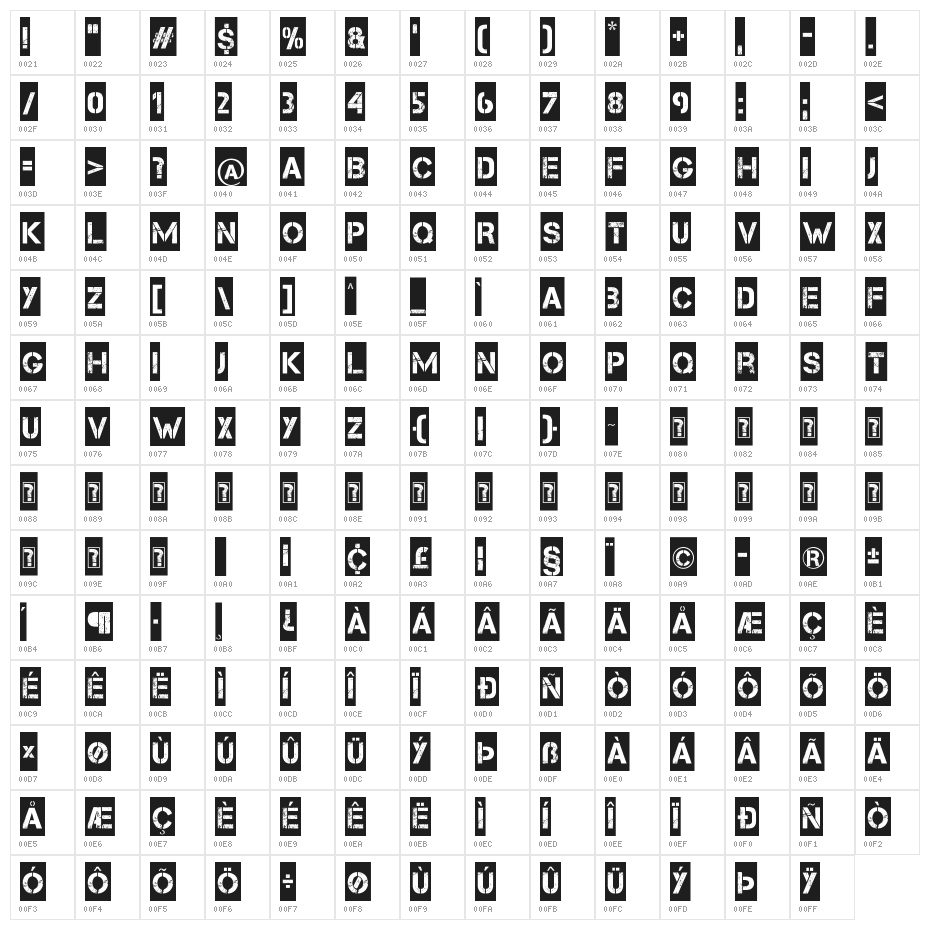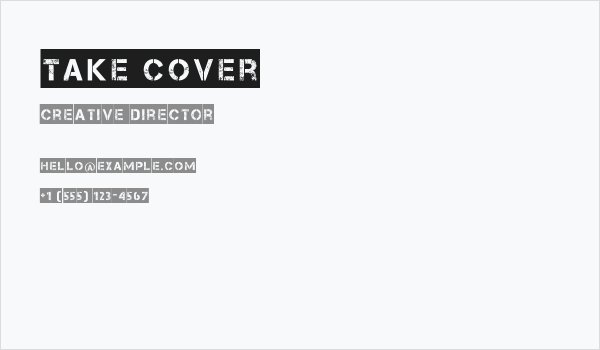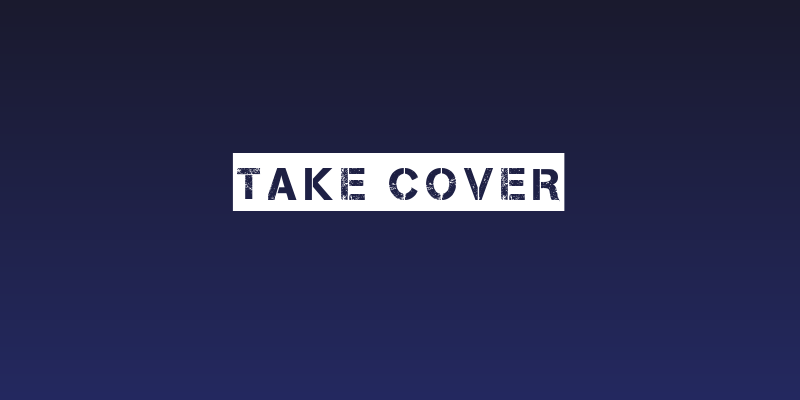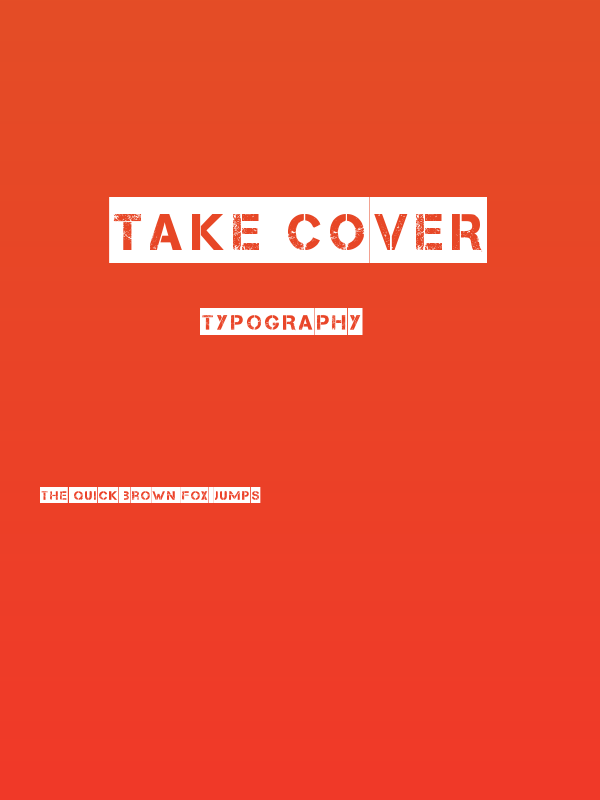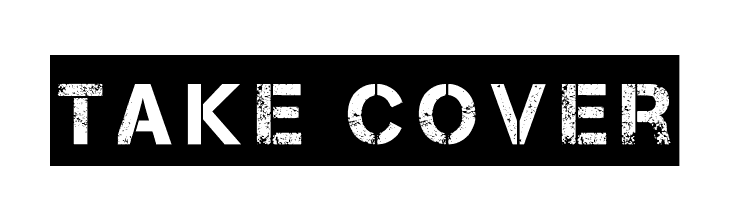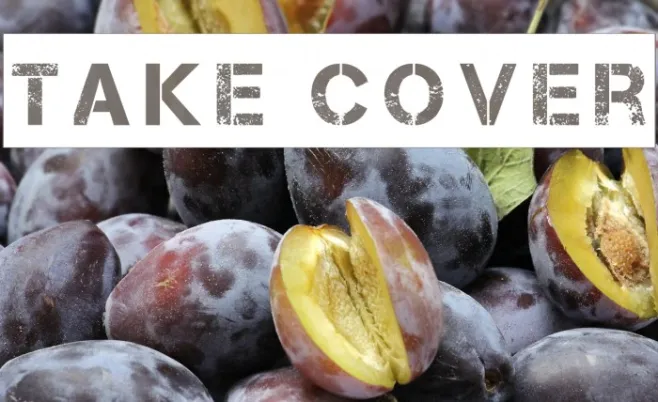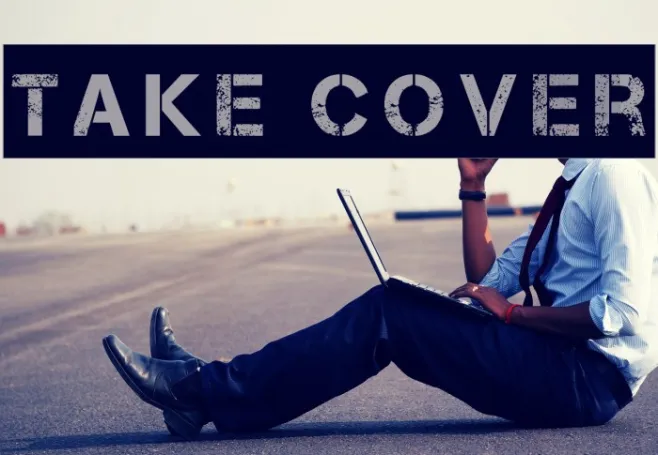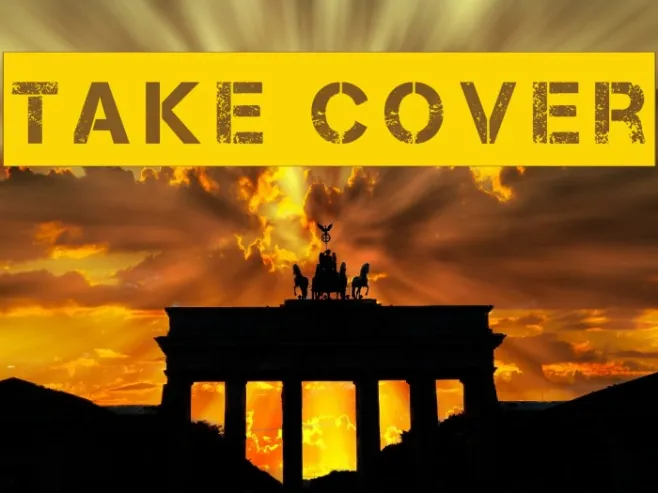
Take Cover Font
Take Cover Description
This font features a bold, distressed style that mimics the look of stenciled letters with a weathered, grunge effect. The characters are uppercase and have a rugged, industrial feel, with irregular textures that suggest wear and tear. The font's design is reminiscent of military or urban street art, making it suitable for projects that require a strong, impactful visual presence. The numbers and special characters maintain the same distressed aesthetic, ensuring consistency across all text elements.
| Overall Style | Grunge, Industrial |
| Proposed Projects | Ideal for military-themed designs, urban street art projects, posters, album covers, and any creative work that benefits from a gritty, impactful look. |